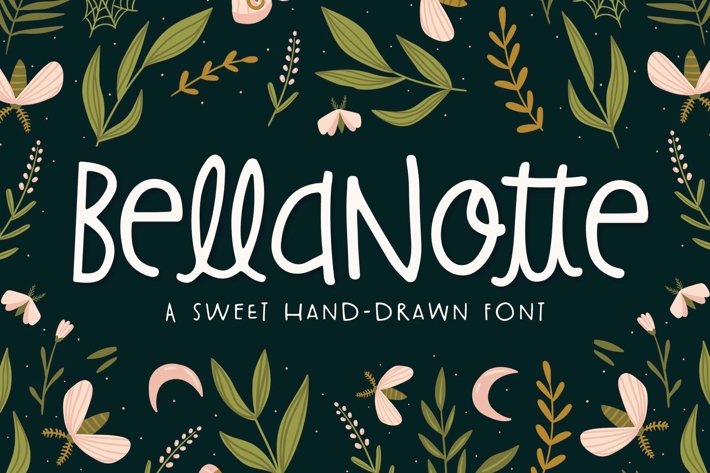
BellaNotte Font
Bella Notte is a simple handwritten font with charming characters that create a unique look. Small details give this font style and provide visual interest, yet it remains readable even at small sizes.